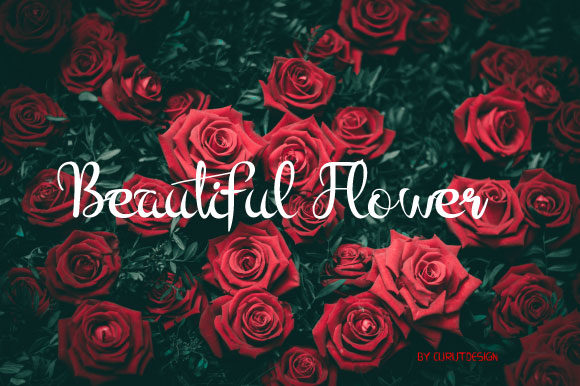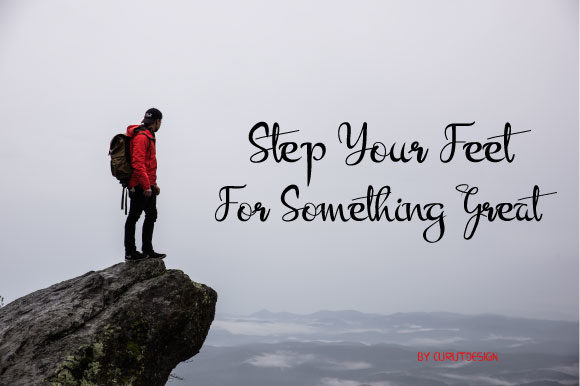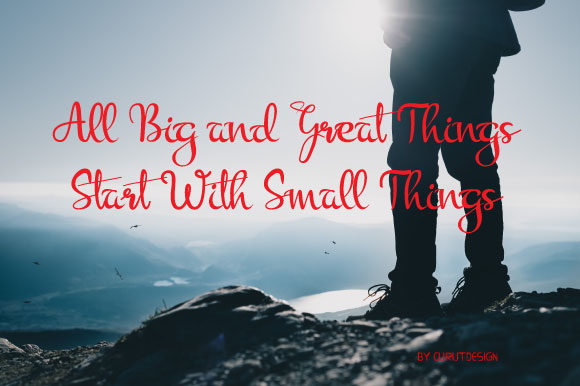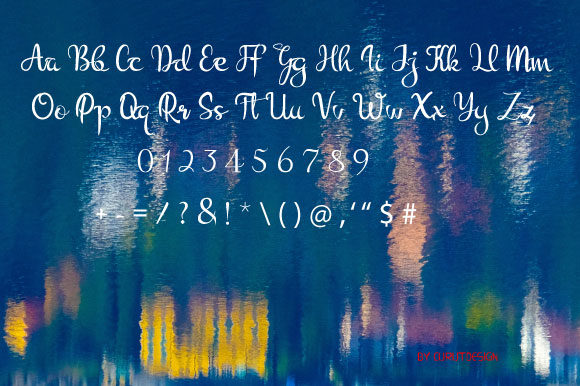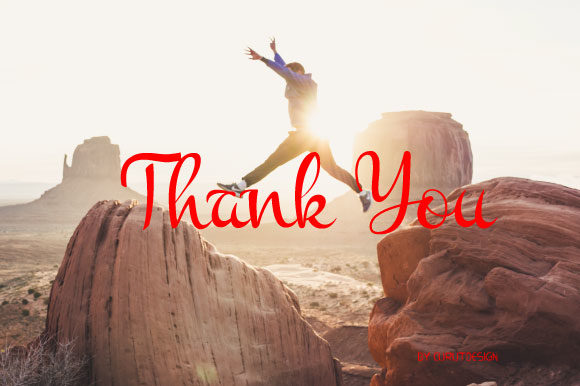
Introducing Delimukan Font: Elevate Your Designs with Authentic Handwritten Style
In the world of design, fonts play a crucial role in conveying messages, expressing emotions, and setting the tone for a brand or project. With the vast array of fonts available, it can be challenging to find one that stands out from the rest. However, if you’re looking for a unique and authentic handwritten font that combines traditional lettering with modern design elements, look no further than Delimukan Font.
What is Delimukan Font?
Delimukan Font is a one-of-a-kind handwritten font that seamlessly blends authentic lettering with a contemporary approach to design. This distinctive font is perfect for designers and crafters seeking to add a personal touch to their projects. Whether you’re working on a branding campaign, a craft project, or a digital design, Delimukan Font is sure to make your work stand out.
Key Features of Delimukan Font
- Authentic Handwritten Style: Delimukan Font boasts an authentic handwritten style that exudes warmth and personality.
- Contemporary Design Approach: The font’s modern design elements ensure it remains fresh and relevant in today’s design landscape.
- Unique Character Set: Delimukan Font features a unique character set that sets it apart from other fonts.
- Versatile: The font is versatile and can be used for a wide range of design projects, from branding and advertising to crafting and digital design.
Benefits of Using Delimukan Font
So, why choose Delimukan Font for your design projects? Here are just a few benefits of using this exceptional font:
- Adds Personality to Your Designs: Delimukan Font’s authentic handwritten style adds a personal touch to your designs, making them more relatable and engaging.
- Enhances Brand Identity: The font’s unique character set and modern design elements help create a distinctive brand identity that sets you apart from the competition.
- Easy to Read: Despite its handwritten style, Delimukan Font is easy to read, making it perfect for body text and headings.
- Customizable: The font can be customized to suit your design needs, allowing you to experiment with different colors, textures, and styles.
Who Can Benefit from Delimukan Font?
Delimukan Font is an excellent choice for a wide range of designers and crafters, including:
- Graphic Designers: Add a personal touch to your branding campaigns, advertisements, and marketing materials.
- Crafters: Use Delimukan Font to create unique and eye-catching craft projects, such as handmade cards, gift tags, and scrapbook pages.
- Digital Designers: Incorporate the font into your digital designs, including website headers, social media graphics, and email newsletters.
- Small Business Owners: Establish a strong brand identity with Delimukan Font’s distinctive and memorable style.
| Font Name | Delimukan Font |
| Author | curutdesign |